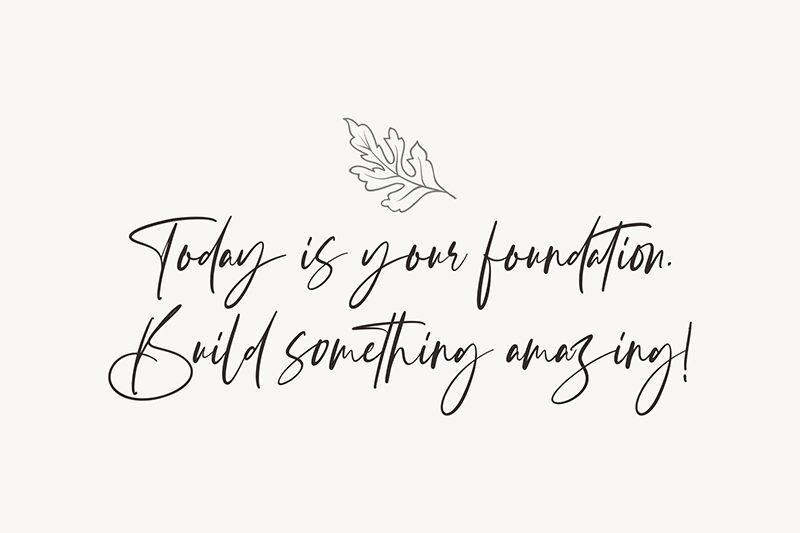
Oastine
Oastine font by Riyadh Rahman is a free handwritten font with a delightful signature font style, crafted with a light weight. This calligraphic typeface evokes elegance and modernity, making every word expressive of beauty. Its letters have a smooth flow and harmonious balance guaranteed to spell out everything you write in exquisite style.
Applying this font for branding projects (logos, labels), landing pages (headers, subheaders), video titles (movies, promotions), or within promotional assets (banners) can elevate them to their maximum potential. Use it artistically in digital invitations, greeting cards, menus for fancy dining experiences, magazine covers or page layouts; get its classic touch everywhere.